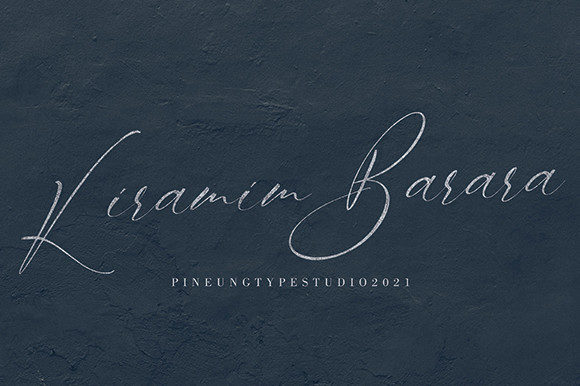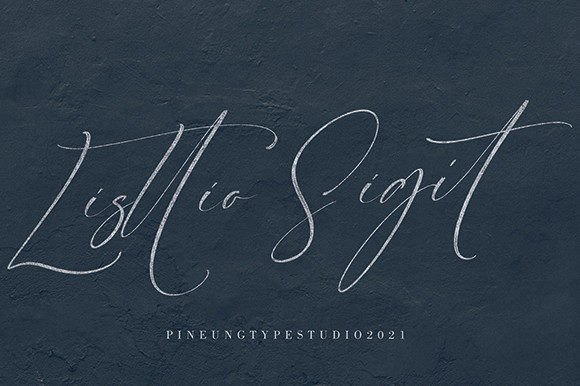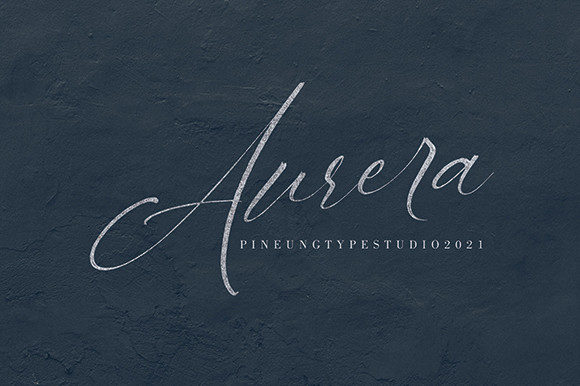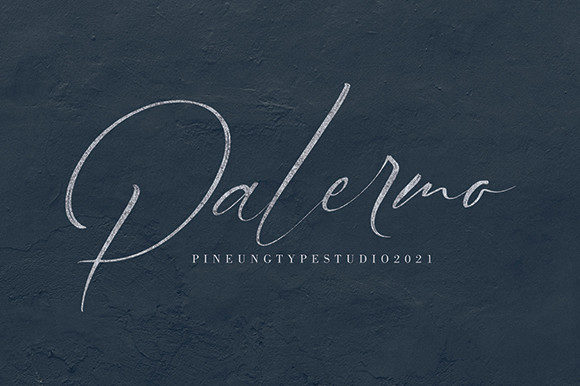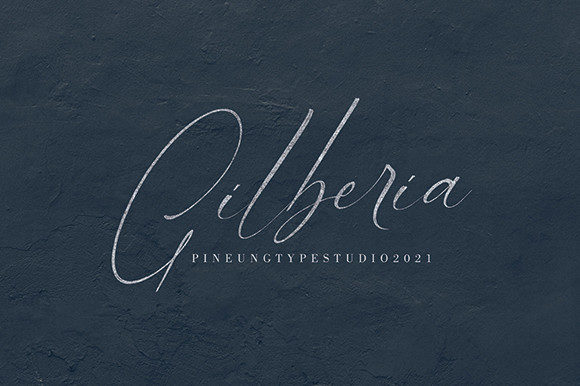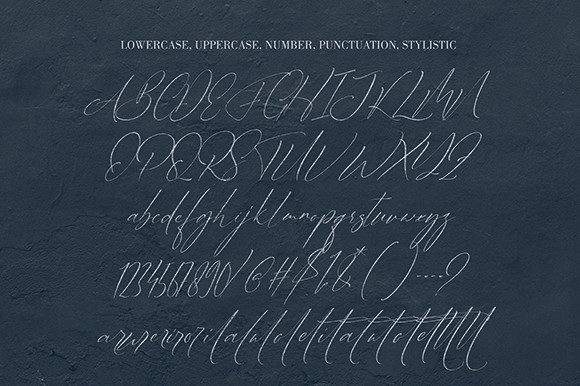
The Perfect Touch: Unlocking the Magic of Bhesting Font
Have you ever stared at a blank page, struggling to find the perfect words to bring your design vision to life? The blank page syndrome is a familiar feeling for many creatives, but what if you had the perfect tool to break through that creative block? For designers, finding the right font can be the difference between a mediocre design and a masterpiece.
Enter the Bhesting Font, a stunning light handwritten font that adds a touch of luxury and sophistication to any design project. With its unique feel and striking impact, Bhesting Font is the perfect companion for designers looking to elevate their work. Whether you’re working on a branding project, a marketing campaign, or a personal creative endeavor, Bhesting Font is sure to make your design shine.
- Unique Character Set: Bhesting Font features a unique character set that includes a wide range of glyphs, including ligatures, swashes, and ornaments, making it ideal for designers and typographers who require a high level of customization.
Bhesting Font Review
I recently had the chance to work with the Bhesting font, and I must say it’s a mixed bag. ✨ On the plus side, I love the unique, hand-drawn feel it brings to any project. The subtle imperfections and quirky flourishes make it perfect for designs that need a bit of personality.
- The Bhesting font is great for creative, artistic projects where you want to add a touch of whimsy.
- The font is highly customizable, making it easy to adjust to fit your specific design needs.
- The Bhesting font is available in a range of weights and styles, giving you plenty of options to choose from.
However, there are some limitations to consider ⚠️. The font can be a bit difficult to read at small sizes, and the irregular letterforms can make it tricky to use for large blocks of text.
Overall, I think the Bhesting font is a great choice for designers who want to add some visual interest to their projects. While it may not be the best option for every design, it’s definitely worth considering for the right project.
Use the Bhesting font for titles, headings, and short paragraphs to add a touch of elegance and sophistication to your designs. Experiment with different font sizes, colors, and combinations to achieve the desired effect.
The Bhesting font is ideal for:
- Magazine and brochure layouts
- Social media graphics and posts